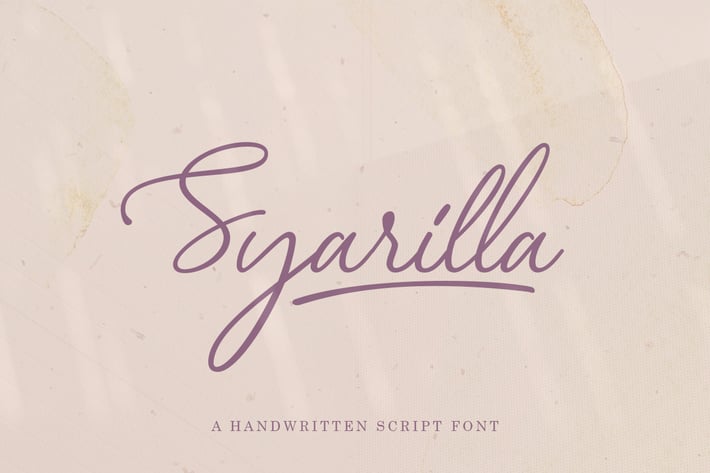
Syarilla - Handwritten Font
Introducing, Syarilla Handwritten Font. This font is suitable for you who needs a typeface for headline, logotype, quotes, apparel, invitation, branding, packaging, advertising, etc. to access the underline just type + (number 1-6) for example 1 2 3 etc.
+ uppercase & lowercase
+ numbers and punctuation
+ multilingual
+ alternates / swashes and ligatures